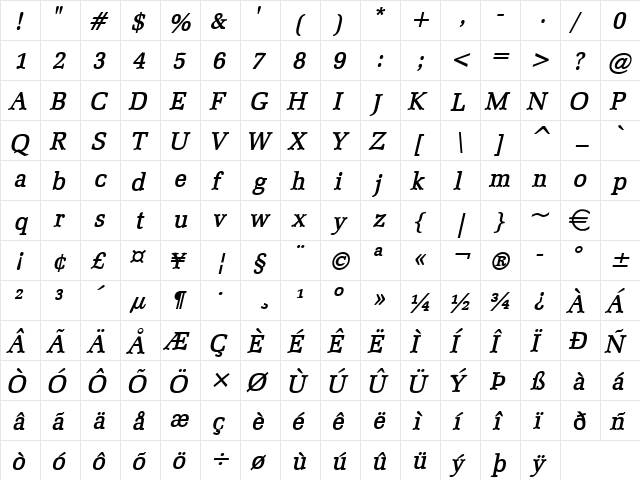
BidRoman BoldItalic Font Preview
Design Context for BidRoman Typeface
BidRoman takes a measured approach to typography — its balanced proportions and neutral character make it a reliable workhorse for both digital and print work. The dynamic lean of this cut emphasises speed and emphasis in any layout. Its bold stroke weight gives it real presence on the page.
Pro Tip: Try BidRoman for annotation and caption copy alongside an upright companion — the contrast in angle creates a dynamic but ordered typographic system.